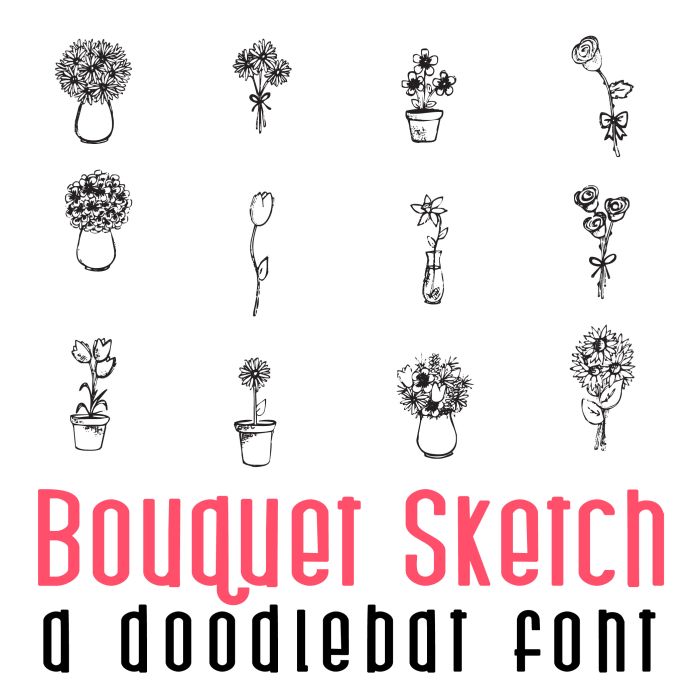
This fun doodlebat font features 26 sketch style floral bouquet images. Perfect for cards, crafts, gifts, decor, scrapbook pages, planner stickers, and more!